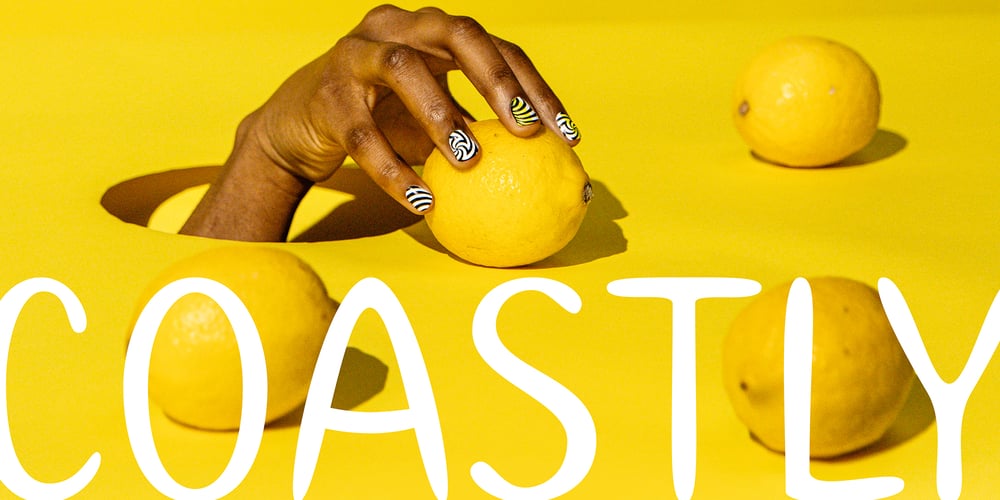
Coastly Font Family was designed by Bogdan Cașotă and published by Design A Lot. Coastly contains 1 styles and family package options. Meet Coastly, a handwritten font that makes you think about vacation, summer, holidays, friends and family. It’s a calm and relaxing font that works great headlines, posters, product design, quotes, branding, marketing materials and more.This font supports latin alphabet with its accents and glyphs. It also covers the most used punctuation marks and glyphs.Coastly is your friendly go to font. We made it thinking of the Amalfi Coast in Italy and its lemons, explaining its name and colour palette. Thinking of limoncello, lemonade from fresh squeezed lemons, granita, ice cream, beach and ferry trips. But we’ve also associated Coastly with your yearly holidays as: Christmas, Thanksgiving, Easter, New Years Eve, Mothers Day and so on. It’s a celebration of life and what its delights.